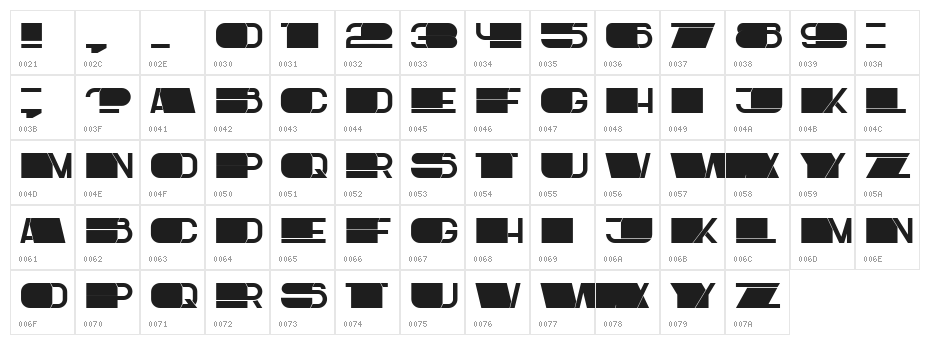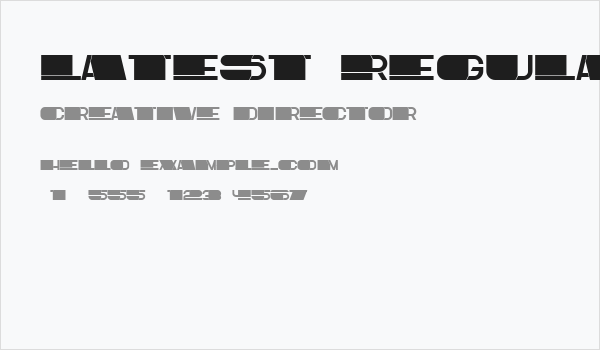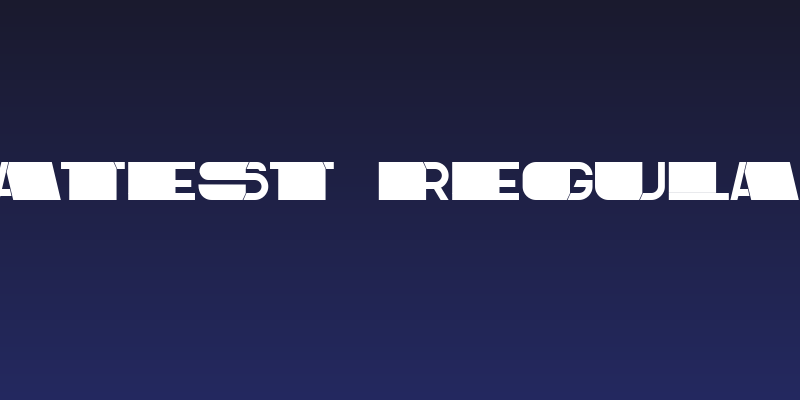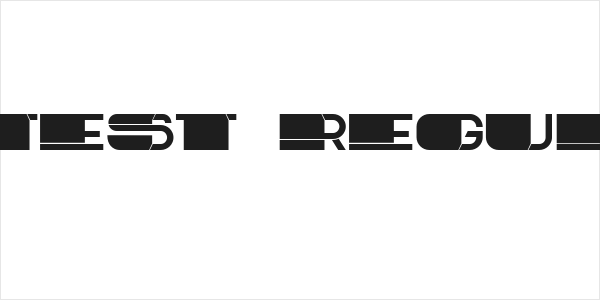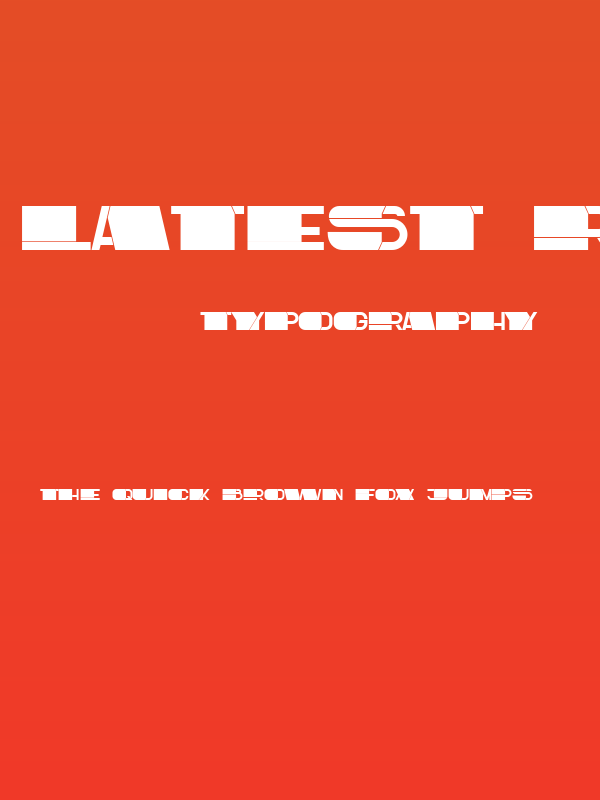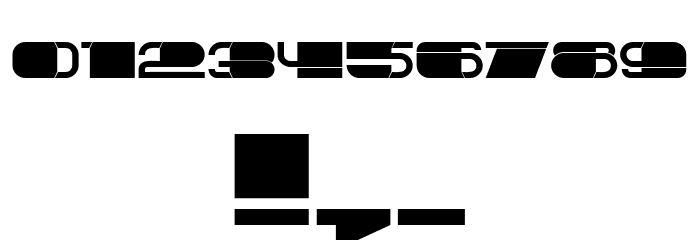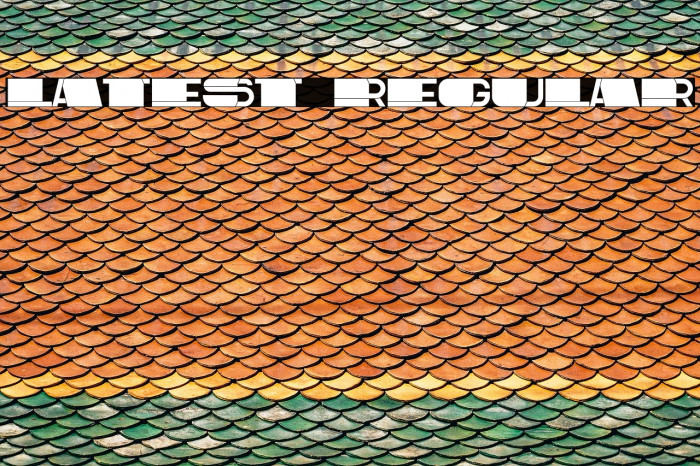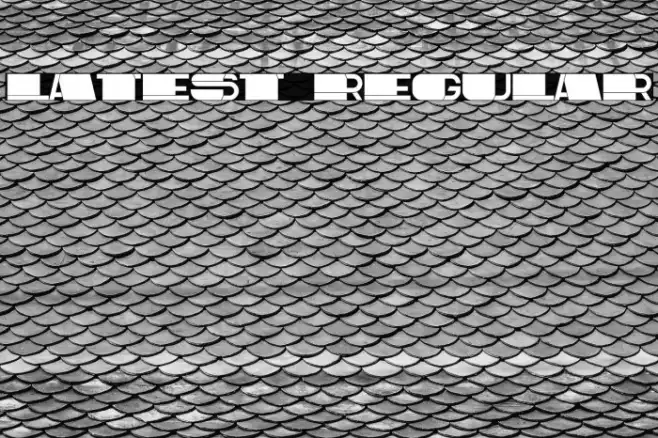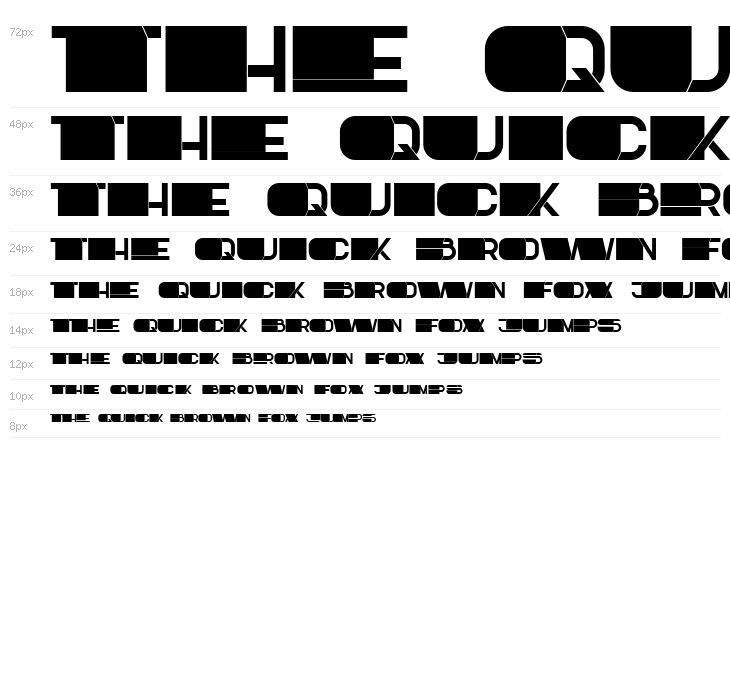
Latest Regular Font
Latest Regular Description
This font features a bold, geometric design with a modern and futuristic aesthetic. The characters are constructed with thick, block-like shapes that create a sense of strength and stability. The use of negative space within the letters adds a unique visual interest, making it stand out in any design. The uppercase letters are uniform in height, while the numbers and special characters maintain the same bold style, ensuring consistency across all elements. This font is ideal for projects that require a strong visual impact, such as branding, advertising, or digital media.
| Proposed Projects | Ideal for branding, advertising, digital media, and any project requiring a strong visual impact. |